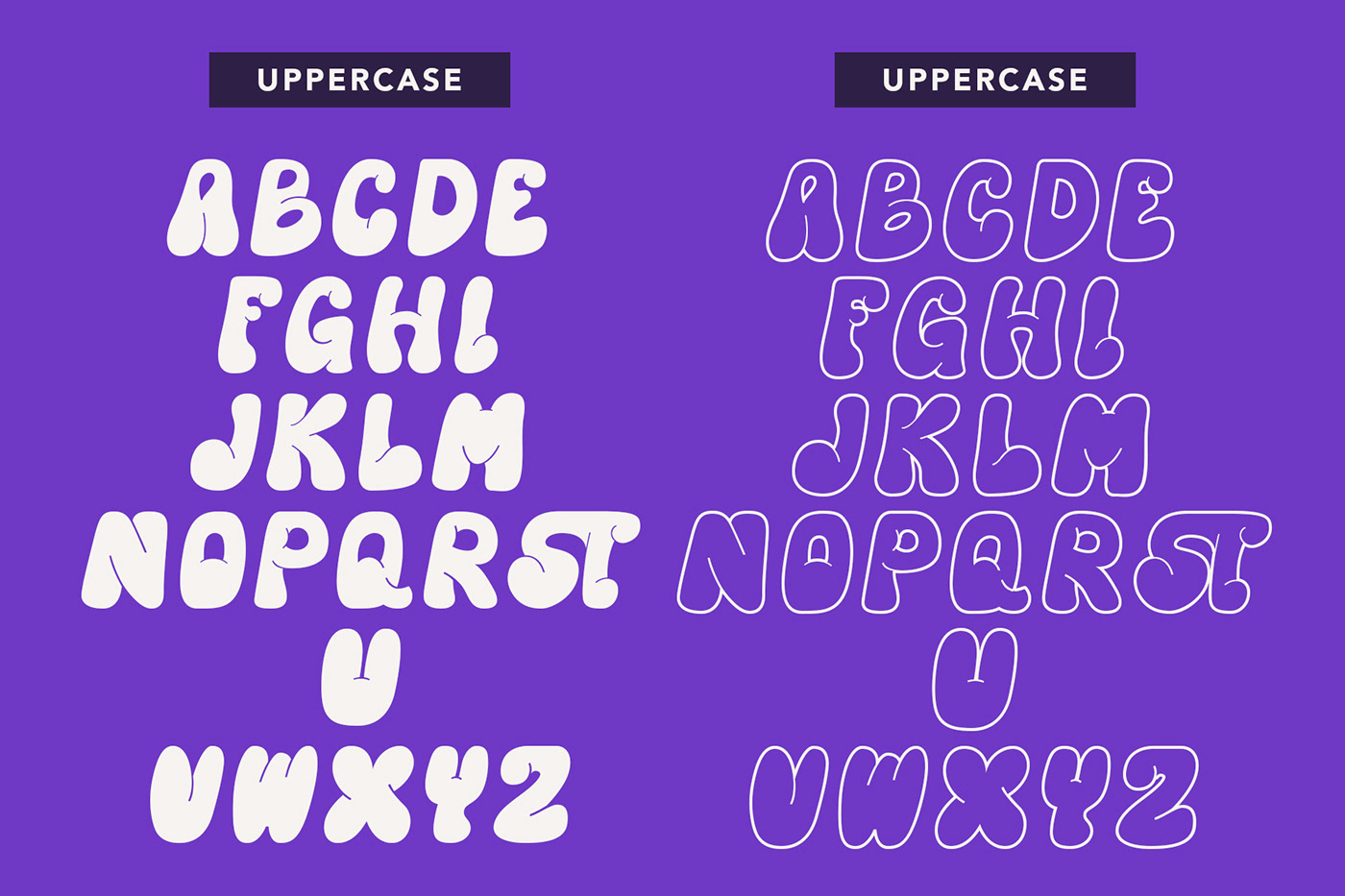
Hyper Blob is a graffiti bubble display font from Rian Dryana. Hyper Blob is a very versatile font that goes well with a large variety of designs. Whether creating logos or designing posters, Hyper Blob's unique personality will make your designs stand apart from the crowd.